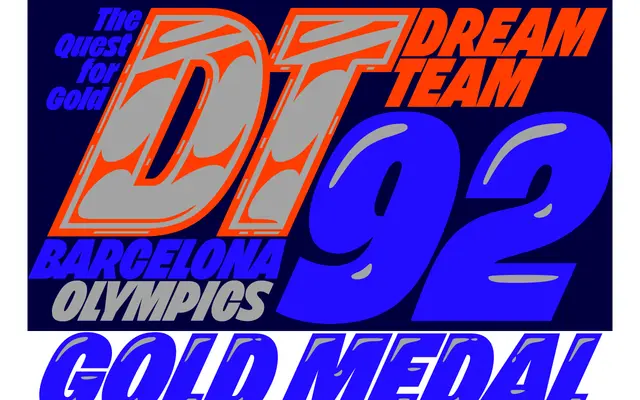
A five-style bold italic display sans drawn from 90s basketball graphics, built for headlines and sports-inflected layouts.
Inspired by Dream Team posters, Fleer trading cards and Eastbay catalogues, BRZO is a full-bodied italic display sans with intentionally tight letter spacing for additional punch at headline sizes. The family runs across five styles including Basic, Gloss and Chrome variants, inviting diagonal setting, stacking and drop shadows. It occupies the same visual territory as sports jersey typography and early-90s athletic print design.
A bold italic display sans inspired by 90s sports graphics, designed for headlines and high-impact layouts. Tight letter spacing and intentional slant place it firmly in display rather than text use.